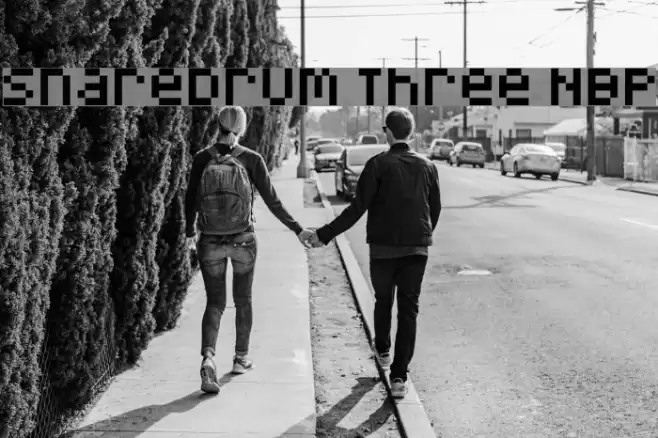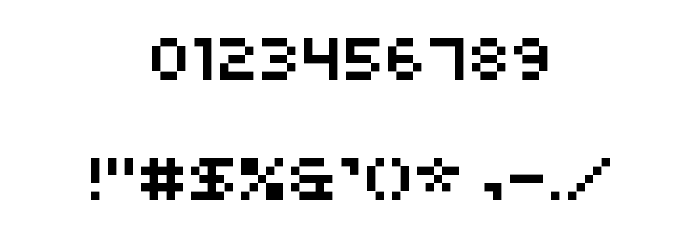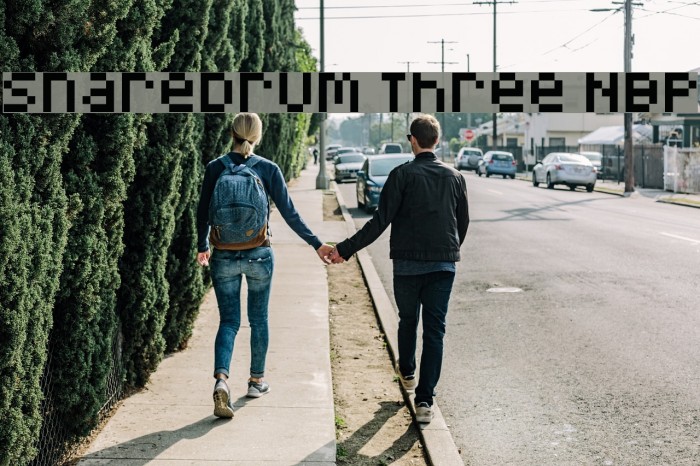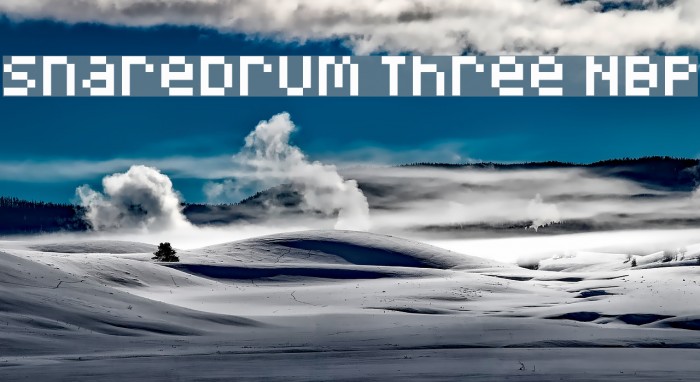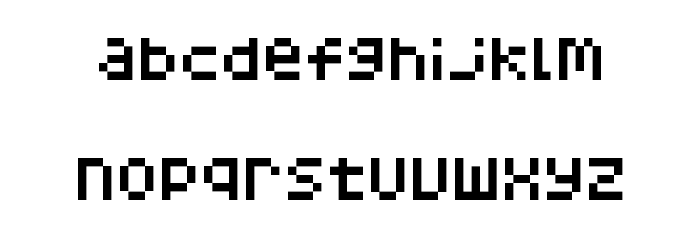
SnareDrum Three NBP Font
SnareDrum Three NBP Description
This font features a pixelated, blocky design reminiscent of early digital displays and video games. Each character is constructed with a grid-like structure, giving it a retro, 8-bit aesthetic. The uppercase and lowercase letters maintain a consistent height, contributing to a uniform appearance. Numbers and special characters are similarly styled, ensuring a cohesive look across all glyphs. The font's geometric simplicity makes it highly legible at various sizes, while its nostalgic charm adds a playful touch to any design. Its straightforward, no-frills approach is ideal for projects that aim to evoke a sense of nostalgia or digital minimalism.
A pixelated, blocky font with a retro, 8-bit digital aesthetic from Uncategorized fonts.
- Proposed Projects: Ideal for retro-themed video games, digital art projects, tech-related branding, and nostalgic graphic designs.
- Overall Style: Vintage